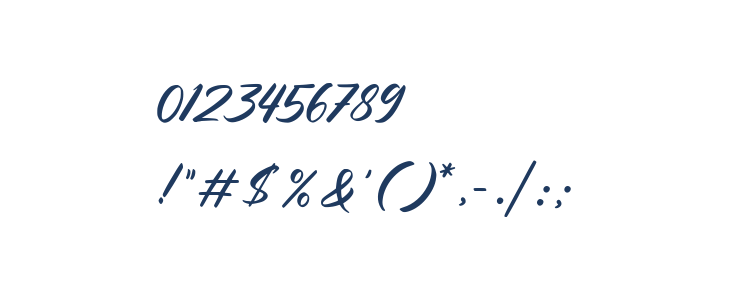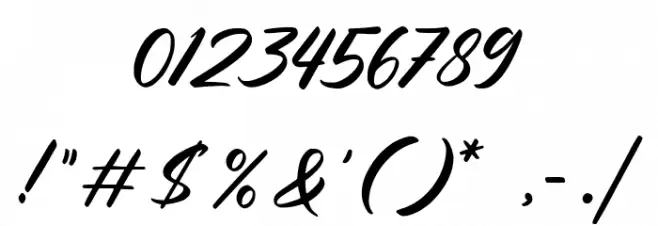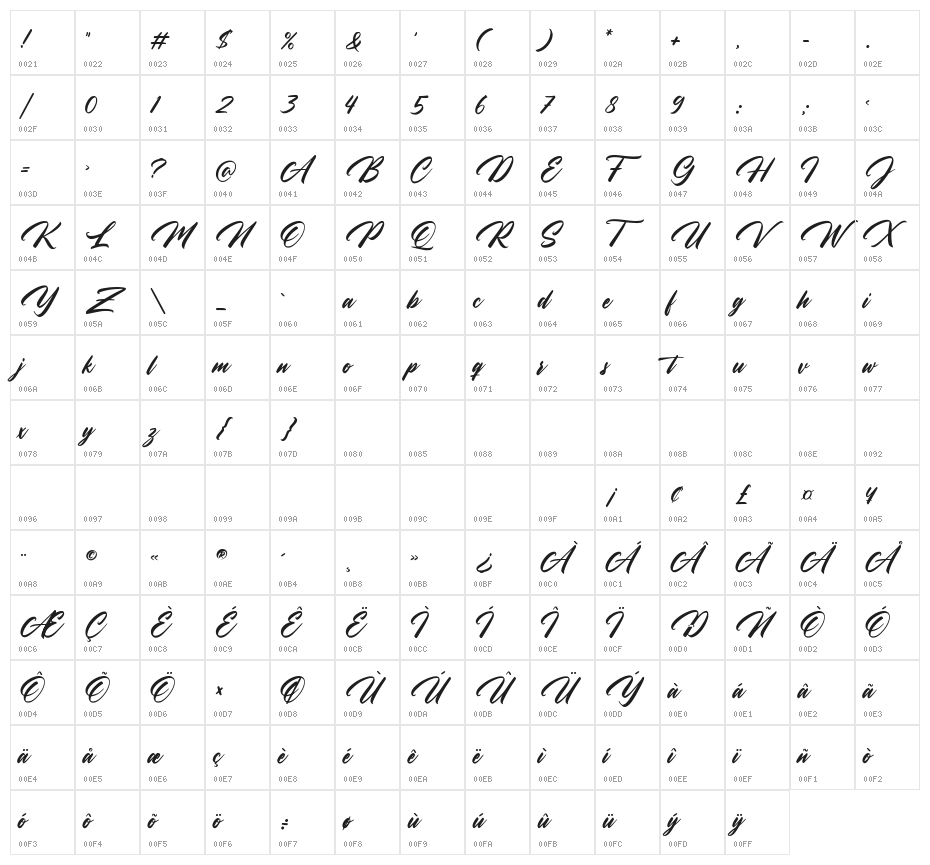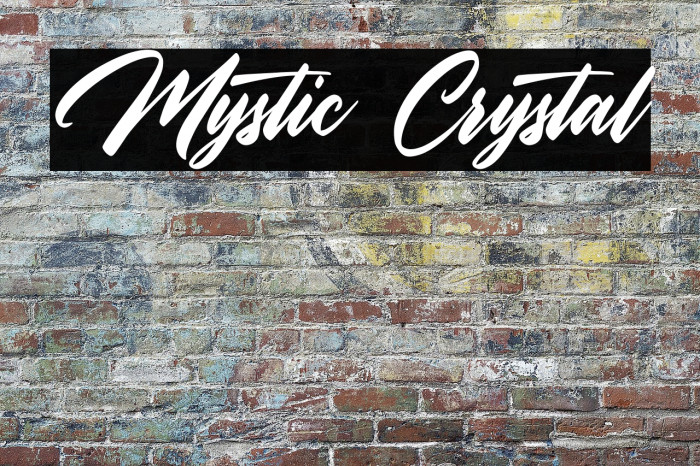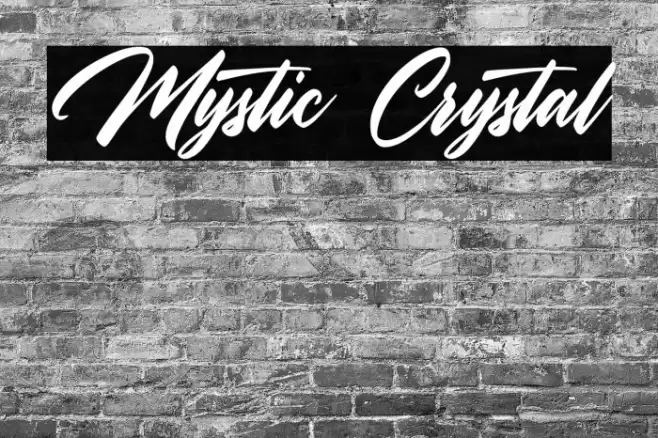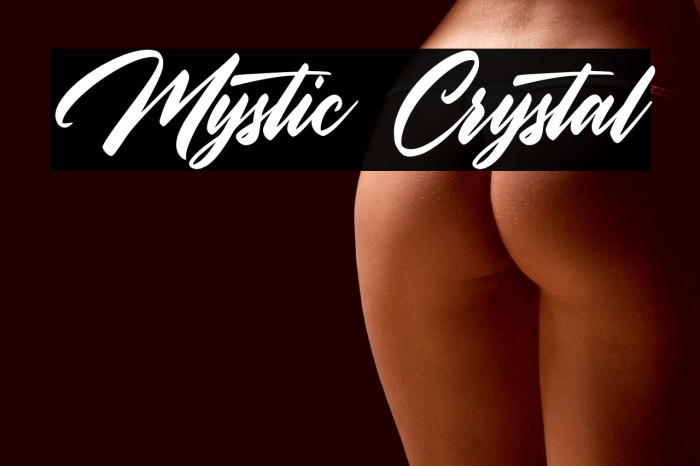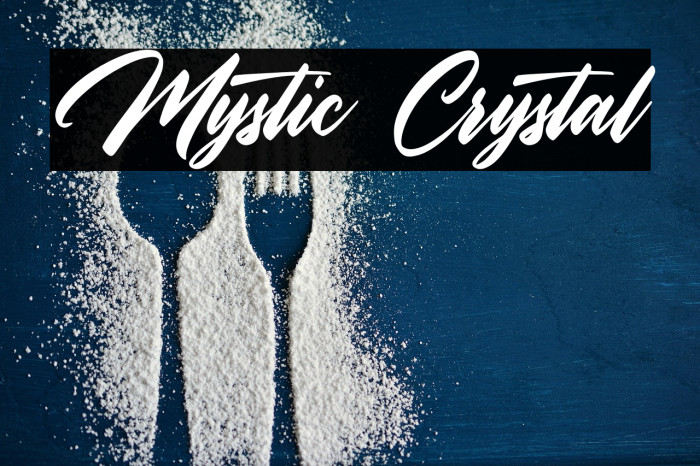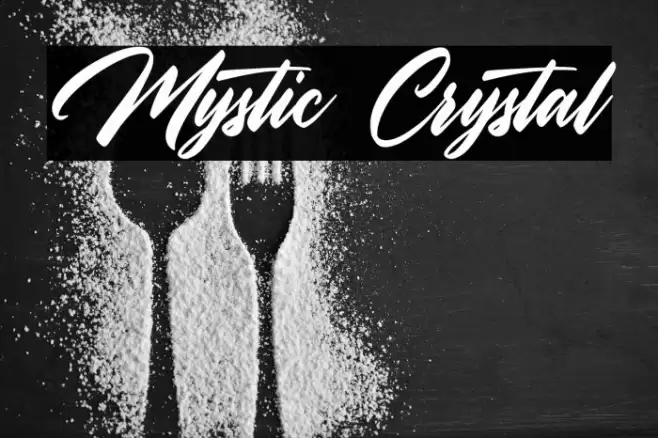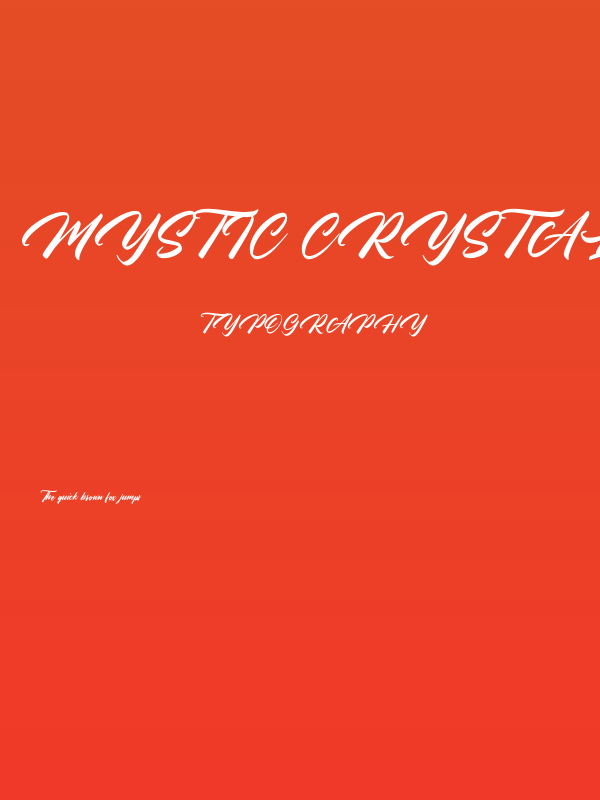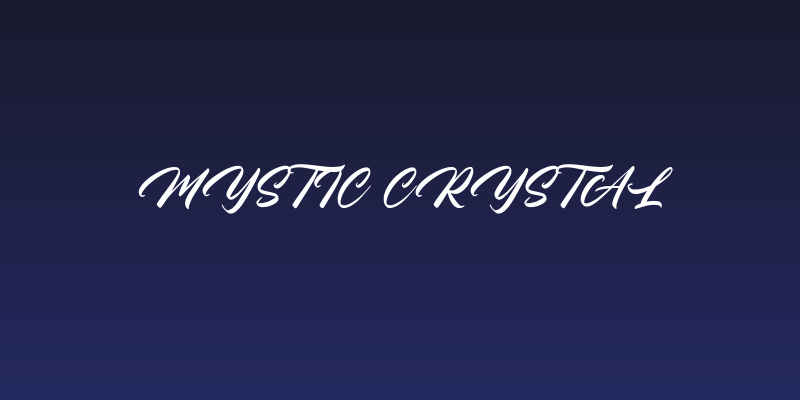
Mystic Crystal Font
Mystic Crystal Description
This font exhibits a dynamic and flowing script style, characterized by its elegant and cursive letterforms. The uppercase letters are slightly more elaborate, with sweeping curves and flourishes that add a touch of sophistication. The lowercase letters maintain a consistent flow, enhancing readability while retaining a stylish appearance. Numbers and special characters are designed to match the overall aesthetic, ensuring a cohesive look. The font's strokes are smooth and fluid, with moderate contrast that emphasizes its graceful nature.
| Proposed Projects | Ideal for wedding invitations, greeting cards, branding, and elegant packaging designs. |